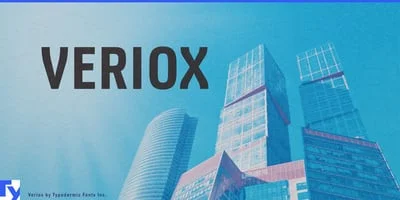
Veriox Font
Veriox Font is ideal for pharmaceutical company branding, scientific research presentations, medical technology interfaces, laboratory equipment packaging, biotechnology startup logos, clinical trial documentation, healthcare innovation materials, and precision medicine communications.
This font is exciting because it embodies scientific precision and medical innovation with clean, analytical letterforms that convey trust, accuracy, and cutting-edge research excellence. The Veriox Font represents the convergence of human health and technological advancement, transforming ordinary text into authoritative communications that inspire confidence in medical breakthroughs and scientific discovery.
The Veriox Font family includes scientific variations such as Regular, Bold, Light, Medium, Italic, Condensed, Extended, and Research versions, providing healthcare professionals with comprehensive typography tools to create credible medical communications that meet the highest standards of scientific accuracy and professional presentation.
Advance medical science with Veriox Font that brings laboratory precision to every healthcare design project. This authoritative typeface combines scientific rigor with contemporary functionality, making it perfect for pharmaceutical companies, research institutions, and medical technology organizations requiring absolute credibility. The font's precise character design ensures your message conveys expertise and reliability while maintaining excellent readability across all scientific applications. Whether you're developing pharmaceutical branding, creating research publications, or designing medical device interfaces, Veriox Font delivers the scientific typography that resonates with healthcare professionals and patients seeking breakthrough medical solutions. Its versatile design works effectively across digital and print media while preserving the analytical clarity that makes medical communications feel genuinely trustworthy and scientifically sound in critical healthcare environments where accuracy and credibility are absolutely essential.